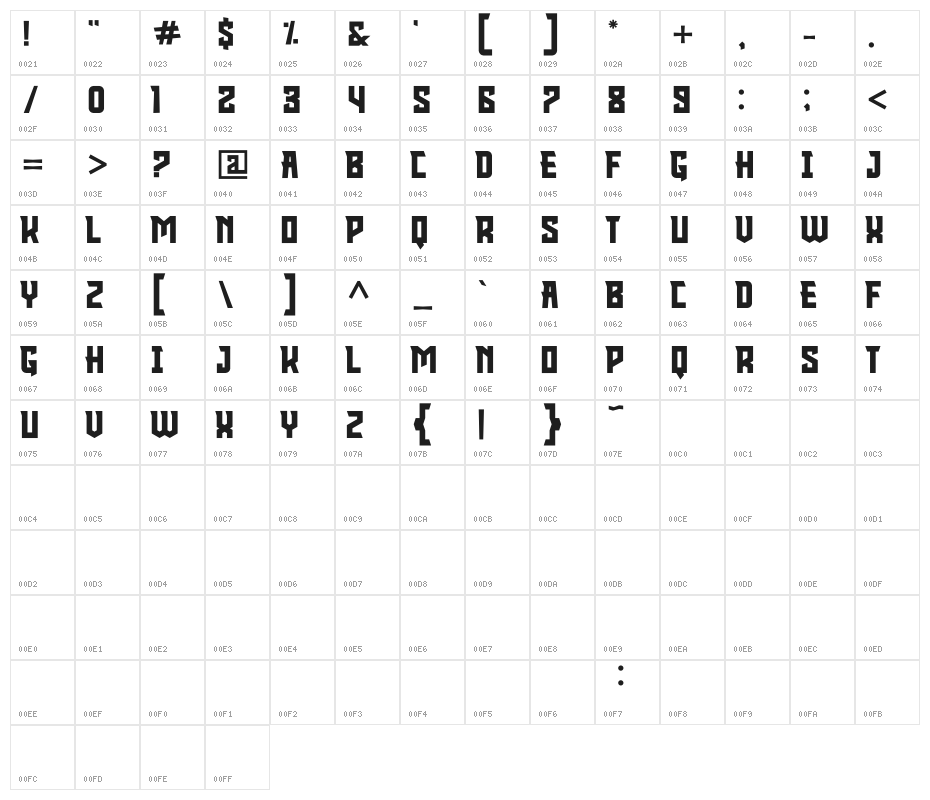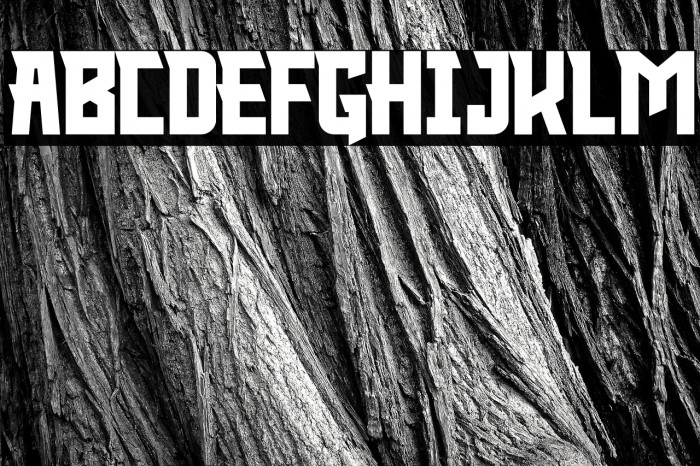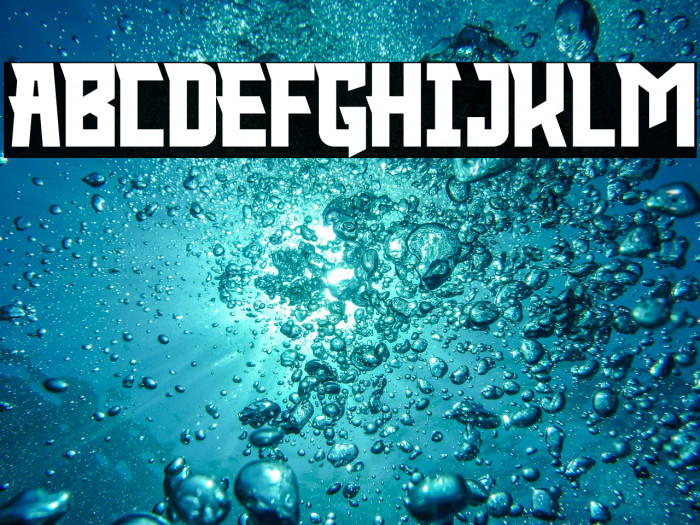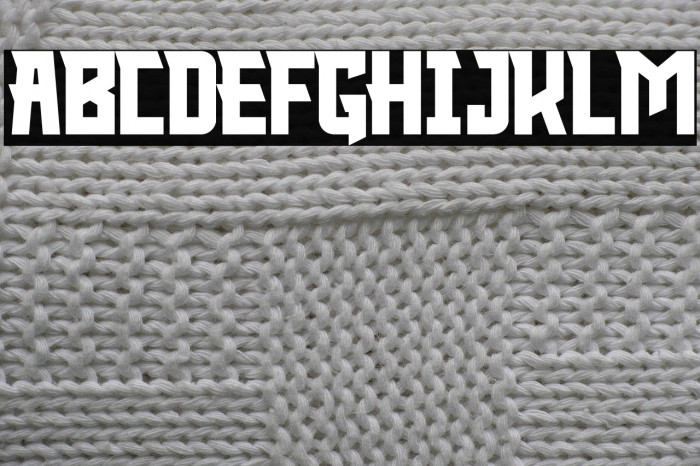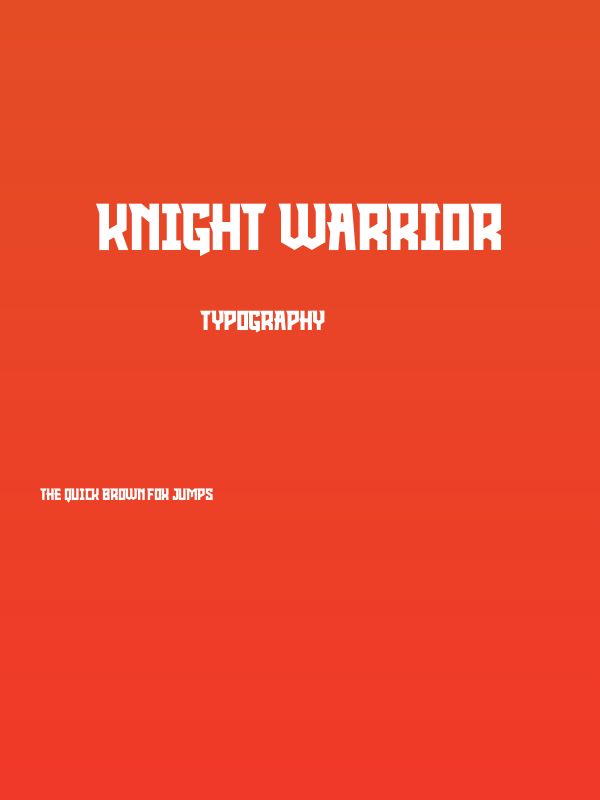
KNIGHT WARRIOR Font
KNIGHT WARRIOR Description
A bold, angular display font with a medieval, warrior-like aesthetic, featuring sharp edges and a strong presence.
| Overall Style | Decorative, Medieval |
| Proposed Projects | Video game titles, posters, branding for medieval or fantasy themes. |